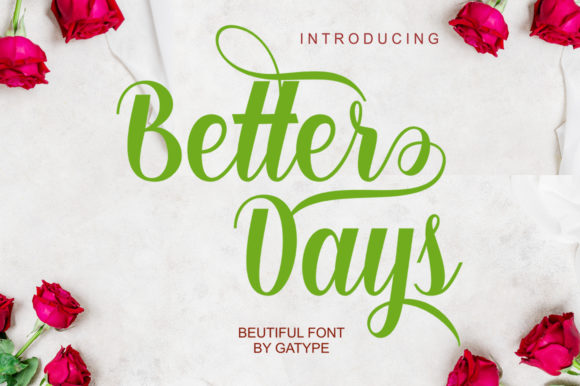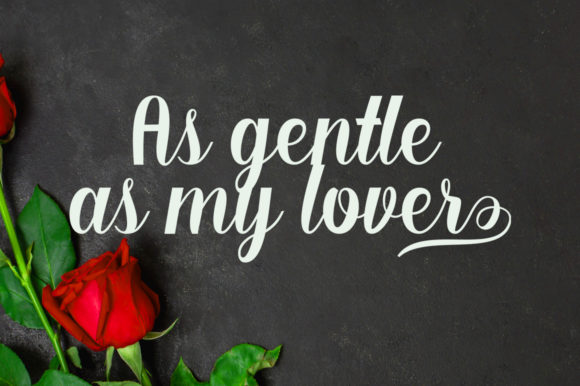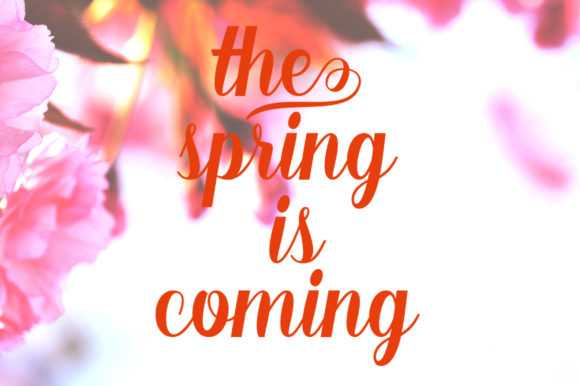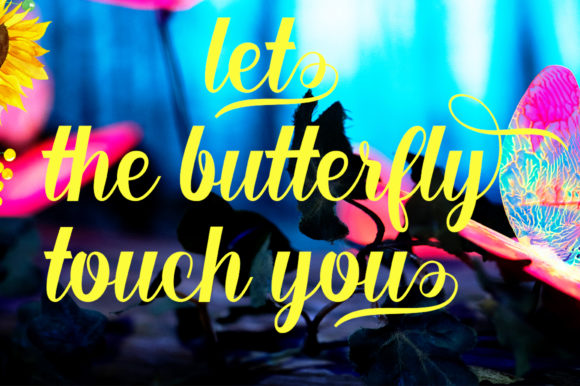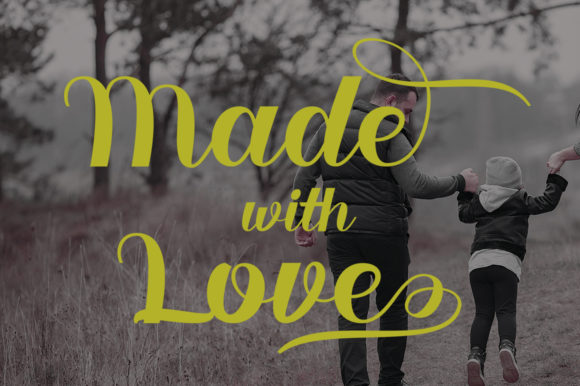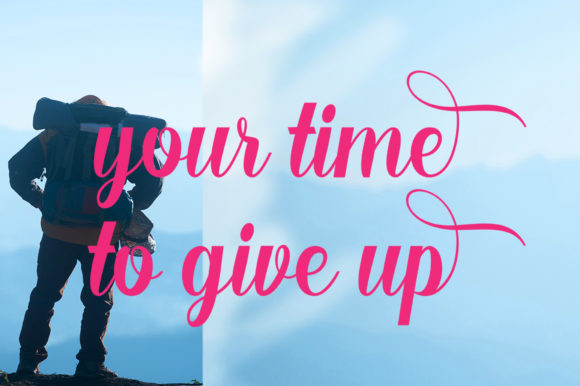
About Better Days Font
Better Days is a modern and cute handwritten font. Fall in love with its authentic feel and use it to create gorgeous wedding invitations, beautiful stationary art, eye-catching social media posts, and cute greeting cards.